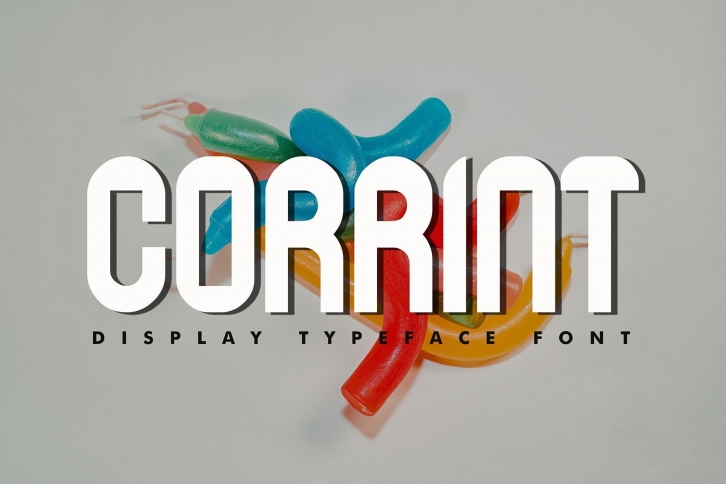
Corrint is a classic display typeface with a fancy, unique, and retro yet classy style. It is a sans serif display font perfect for branding projects, logos, social media posts, advertisements, product packaging, product designs, label, photography, watermark, invitation, stationery, and any projects. It comes with a high level of legibility.